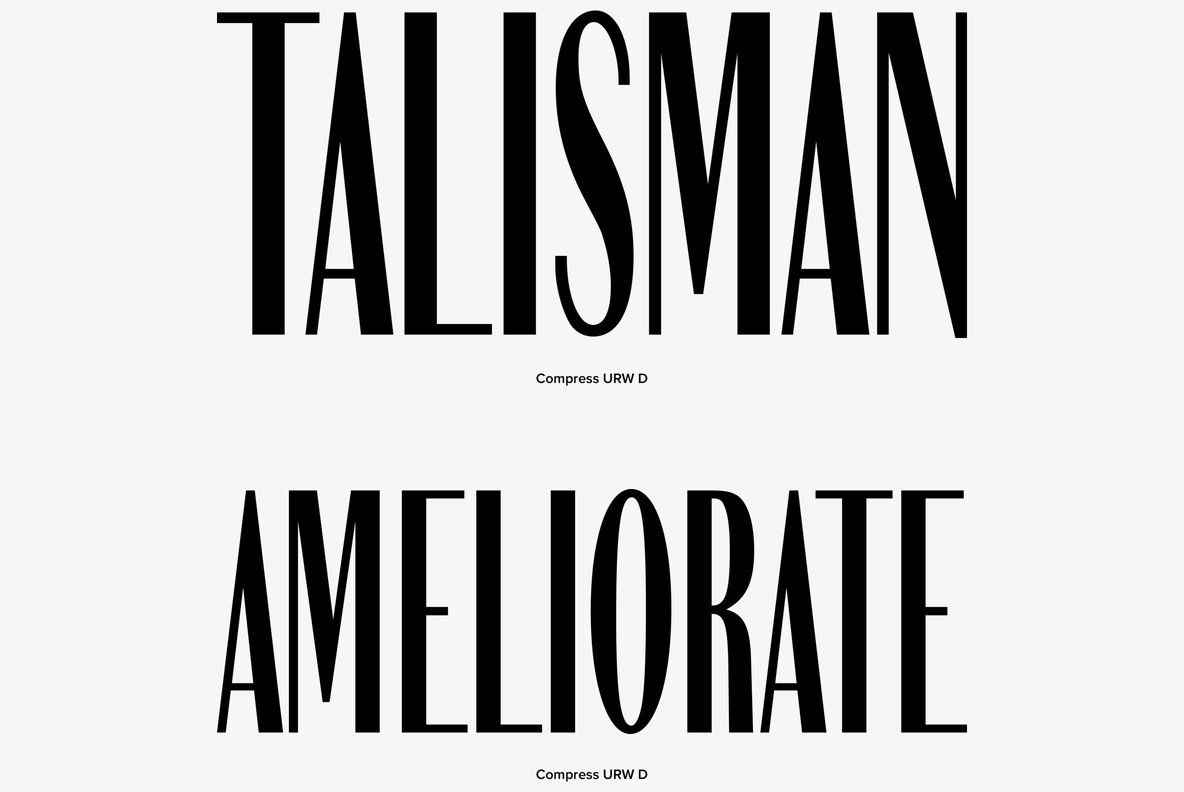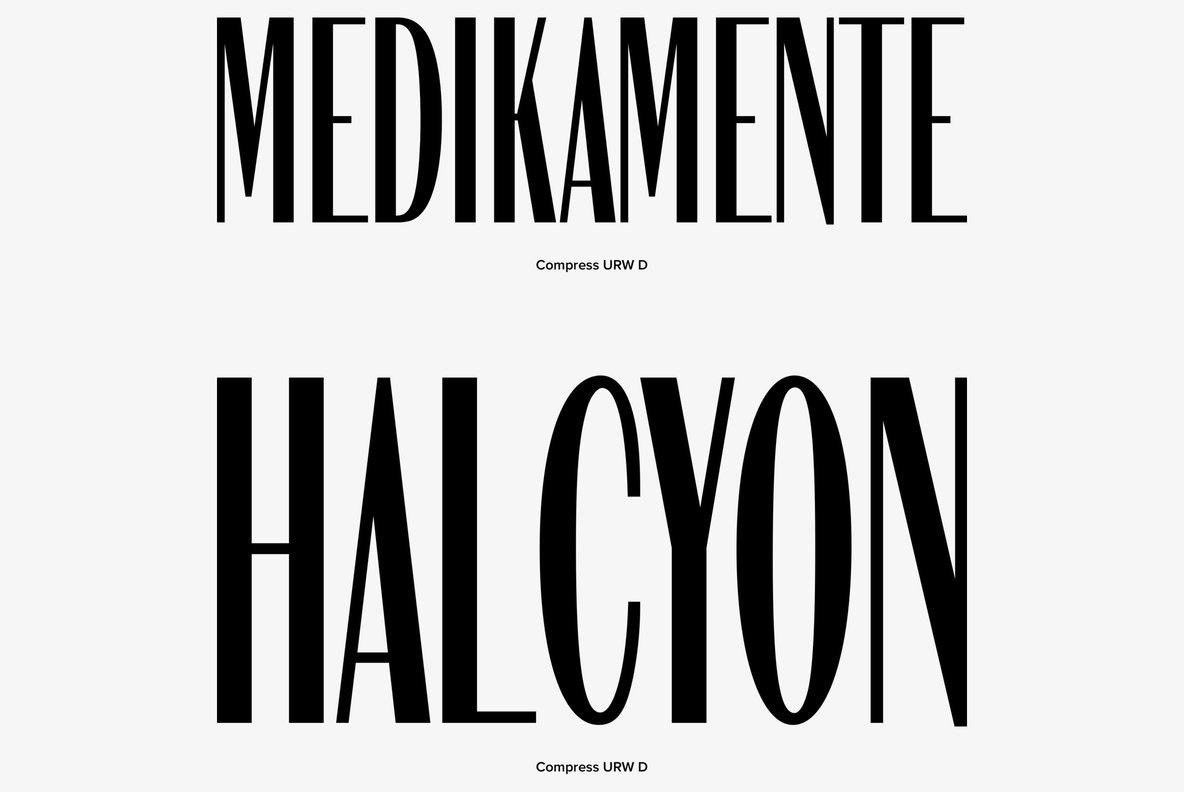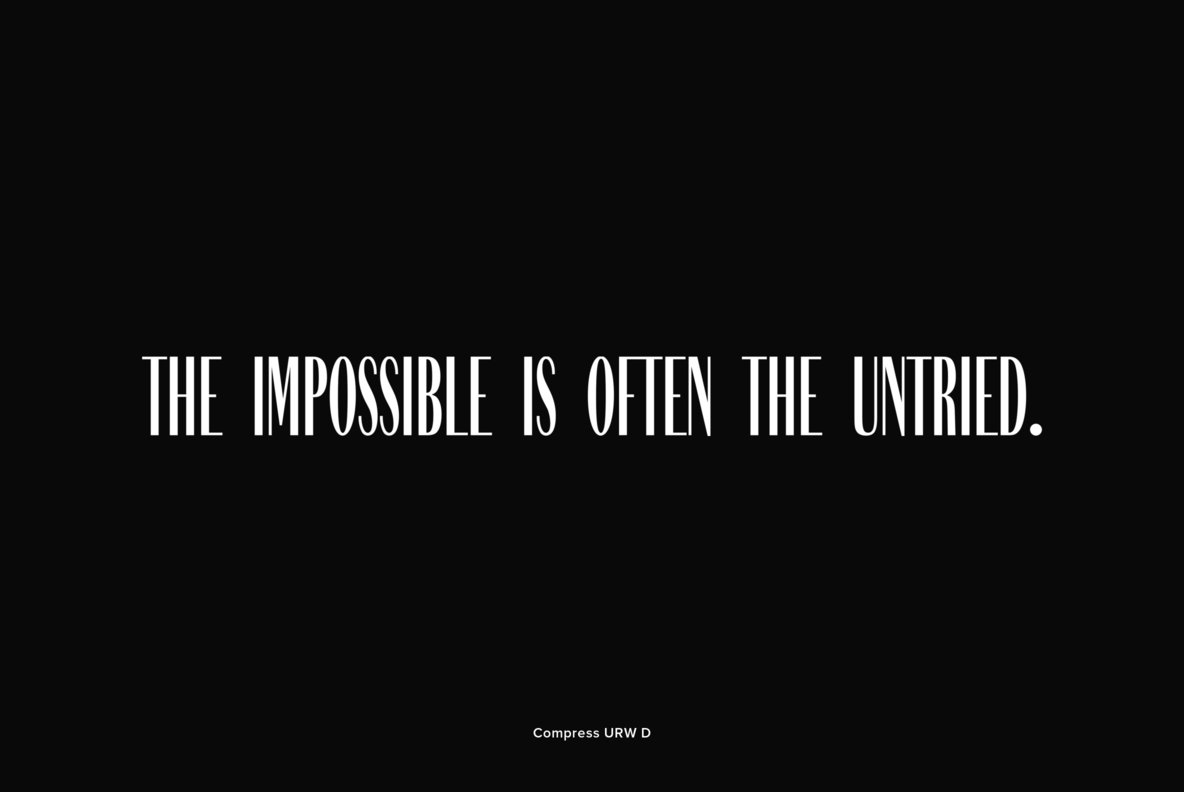
Compress
Designed by Achaz Reuss in 1993, Compress is a tall, slim and fashionable sans-serif design by URW. Contains language support for West, East, Turkish, Baltic, and Romanian.